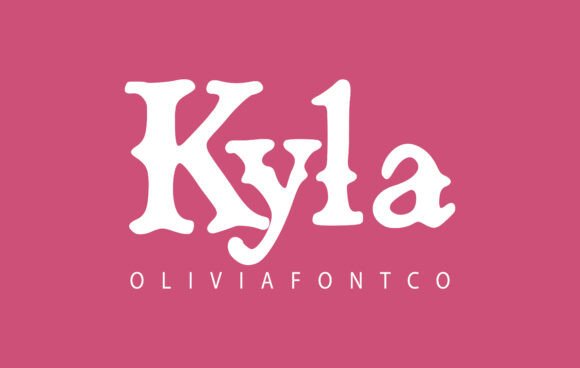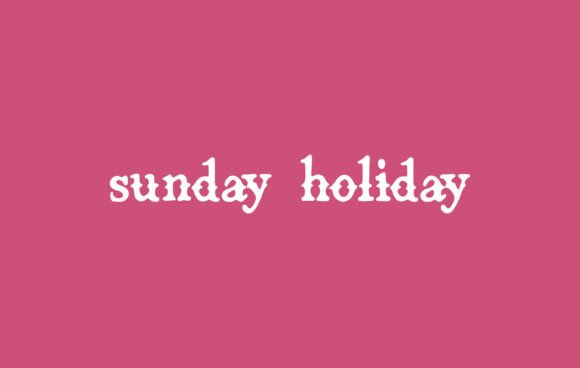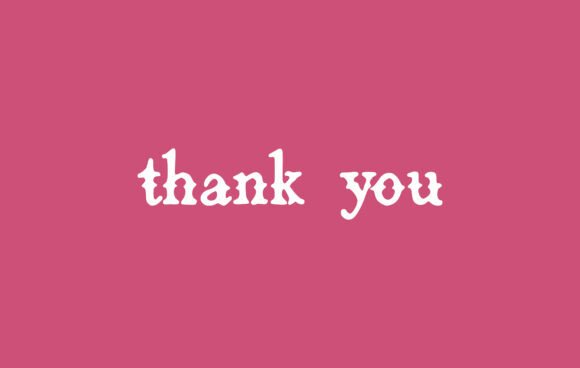
Kyla Font: A Romantic Display Font for Wedding Invitations & Branding
About the Kyla Font
Make a bold statement with Kyla Font, a powerful and memorable font. Kyla is an authentic font with a romantic touch. Expertly designed to be a true favorite, this font has the potential to take your creative ideas to the highest level
Kyla’s romantic touch makes it ideal for projects requiring a delicate yet impactful feel. It excels in headlines, branding applications (especially logos and short taglines), wedding invitations, and short-form editorial design. However, its refined elegance might not be suitable for extensive body text or UI elements where high legibility over long passages is crucial.
Consider pairing Kyla with a clean sans-serif like Montserrat for a modern contrast, or a classic serif such as Garamond for a more traditional feel. A playful script font could add a touch of whimsy, depending on the overall design goal. The font’s overall personality is sophisticated and romantic, conveying elegance and warmth.
Its legibility makes it versatile within its optimal applications; however, avoid using it for situations needing high readability in small sizes or extensive text blocks.